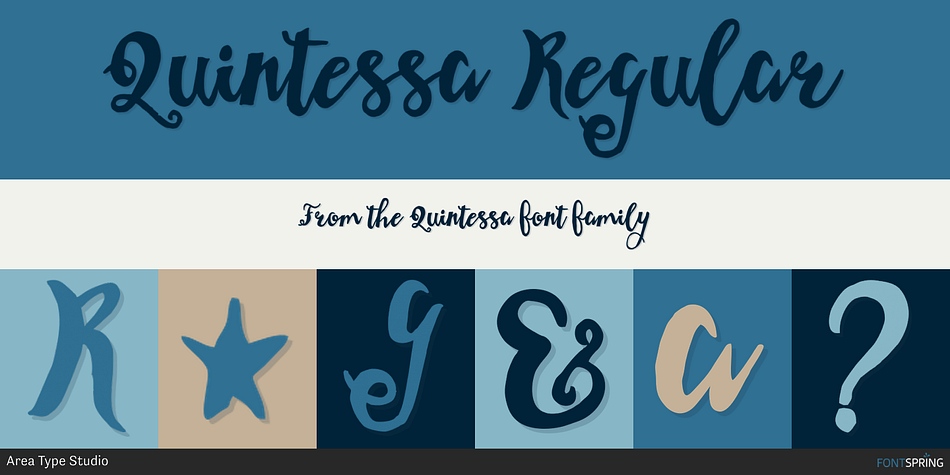
Quintessa Regular
Quintessa is a modern calligraphy font published by Area Type Studio.
Quintessa Script is a modern calligraphy font with unique character, irregular baseline, and girly.
Quintessa Script is a modern calligraphy font with unique character, irregular baseline, and girly. Those all will make you work easily to create: Wedding invitation, Posters, Logos, Print, Quotes, Headers etc Features: Uppercase -Lowercase -Numerals -Basic punctuations Available in OTF and TTF formats. Thanks!!!